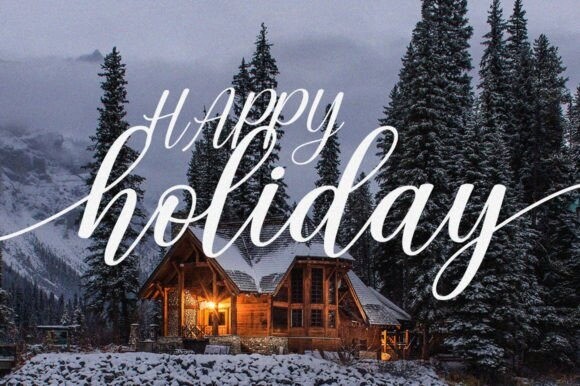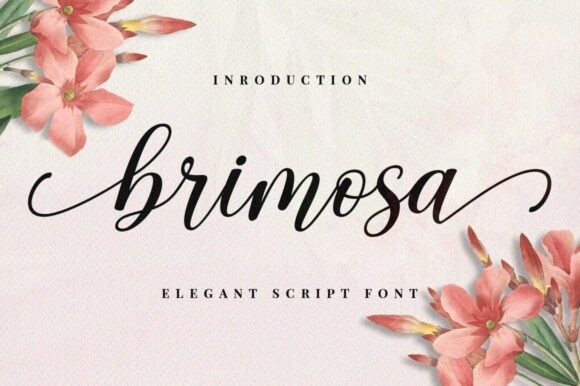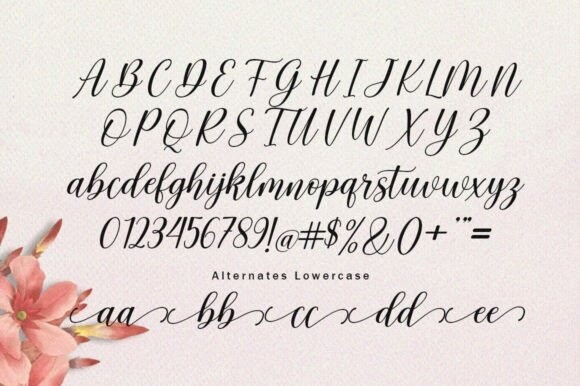
Brimosa Font
Brimosa Font is modern and elegant, designed to add sophistication to any project. Each letter is crafted with precision, featuring clean lines and graceful curves that create a stunning, flowing effect. This font is perfect for wedding invitations, branding, and other designs that require a touch of timeless beauty and refinement.